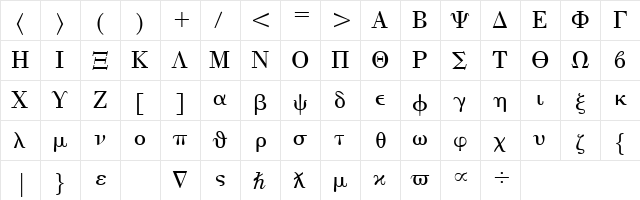
Hellas Regular
Design Context for Hellas Typeface
Hellas takes a measured approach to typography — its balanced proportions and neutral character make it a reliable workhorse for both digital and print work.